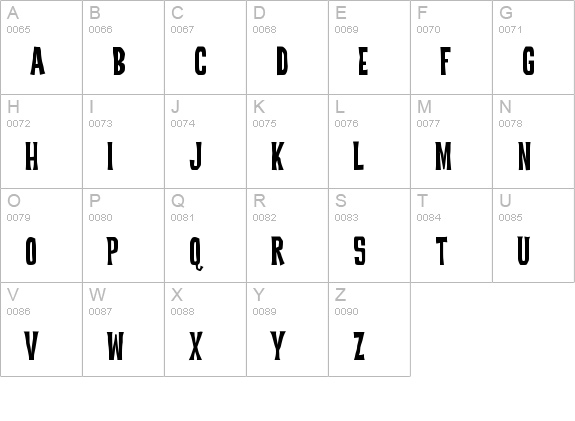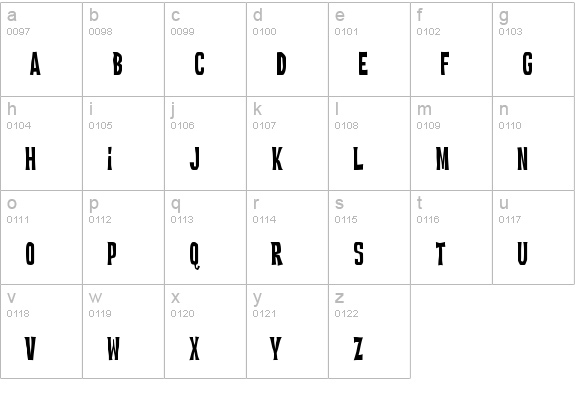
Devil Dog BTN Cond is a distinctive, condensed-width variant in the Devil typeface family \xE2\x80\x94 well suited to design and typography projects.
Devil Dog BTN Cond font is a bold and striking typeface that exudes a sense of power and strength. With its condensed design and sharp edges, this font is perfect for creating eye-catching headlines, titles, and logos. The modern and edgy look of Devil Dog BTN Cond font makes it ideal for projects that require a strong and impactful visual presence. Best of all, Devil Dog BTN Cond font is available for free download at FontsMarket.com. Whether you're working on a personal project or a professional design, this font offers a versatile and dynamic option that will help your work stand out. Download Devil Dog BTN Cond font today and unleash its bold style in your next creative endeavor.